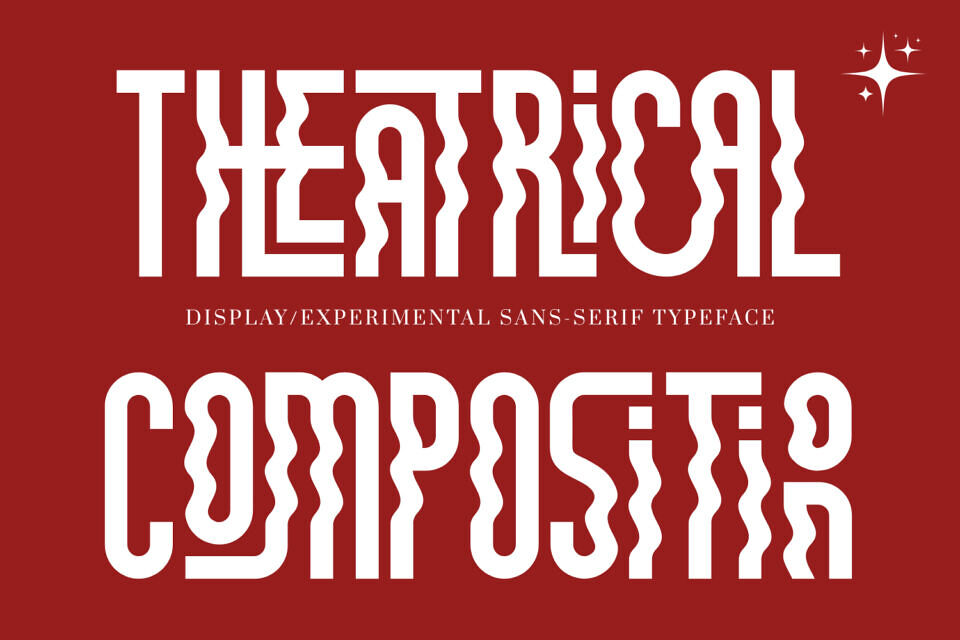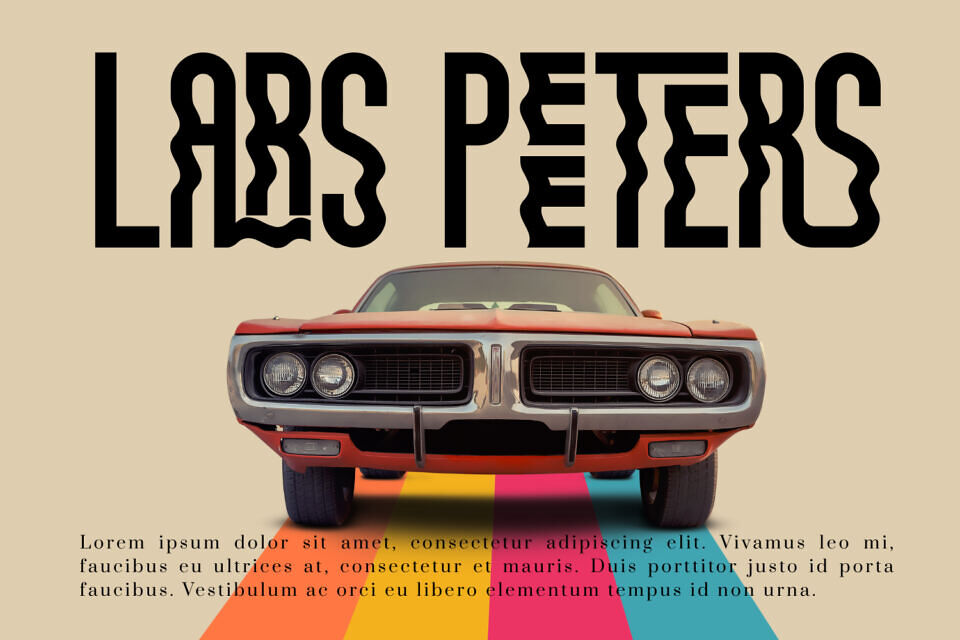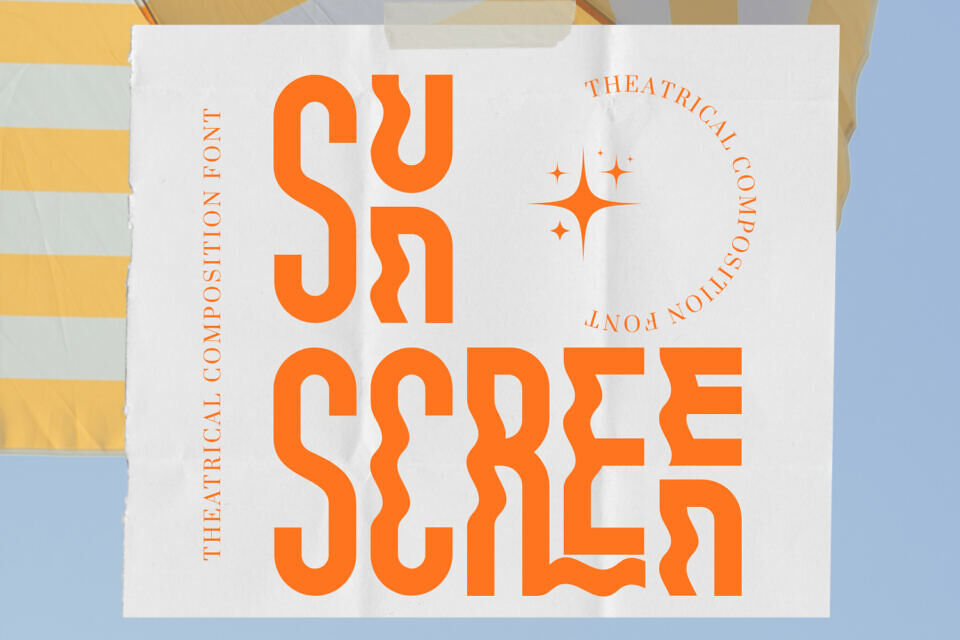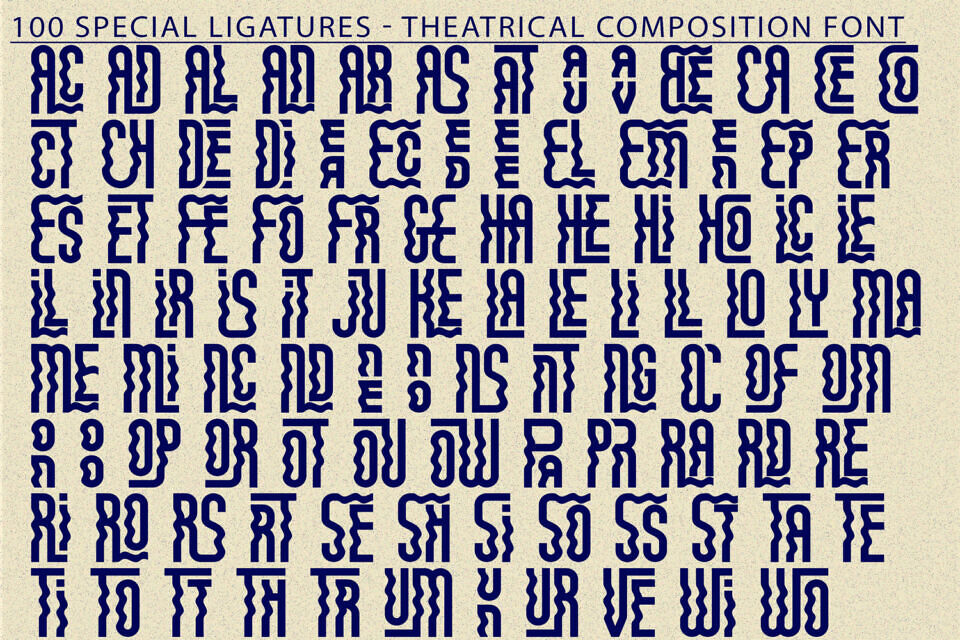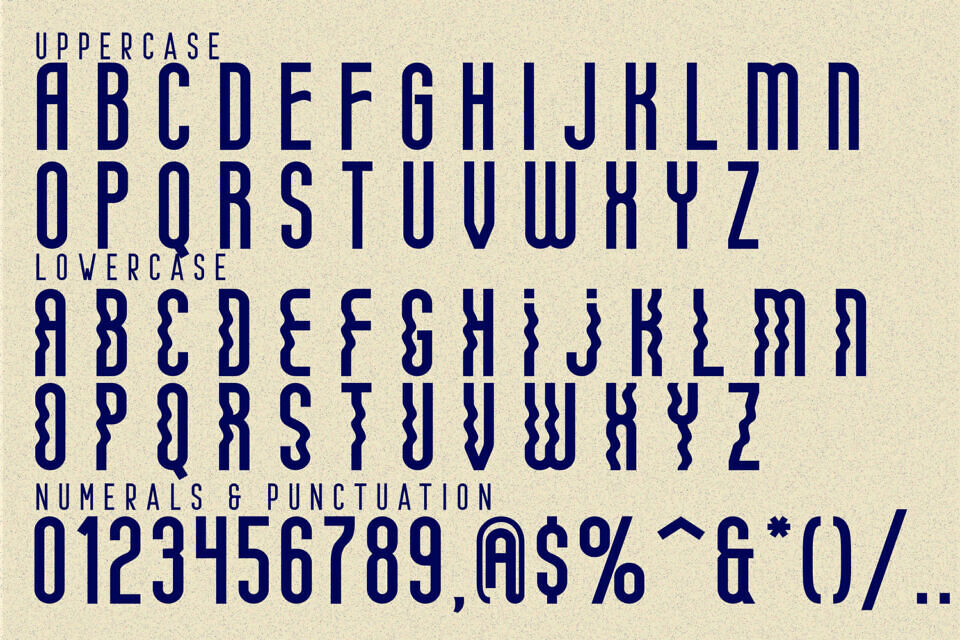
Theatrical Composition is an Experimental Modern Display Font designed with bold geometric construction and distinctive wavy-line strokes. Its unique rhythm comes from the combination of rigid vertical lines and fluid wave-like curves, creating a striking visual texture that feels dynamic, theatrical, and unmistakably modern.
Each letter is crafted with a strong sense of motion, making the font perfect for expressive headlines, posters, album covers, creative branding, and experimental typographic layouts. Theatrical Composition brings a fresh, artistic approach to display typography—balancing clean structure with playful distortion.